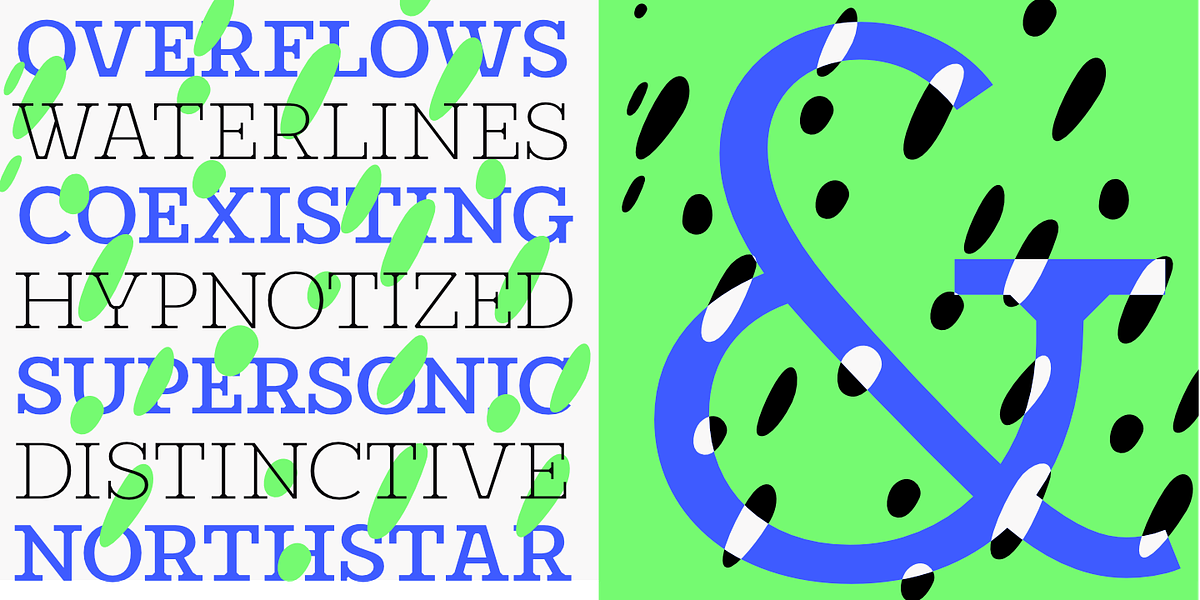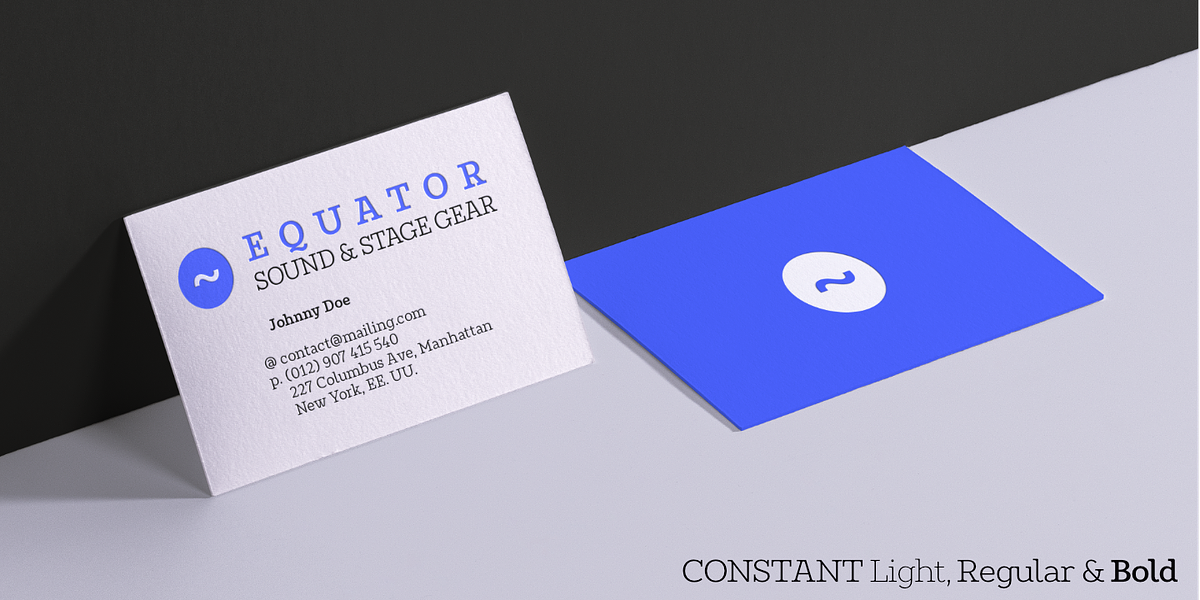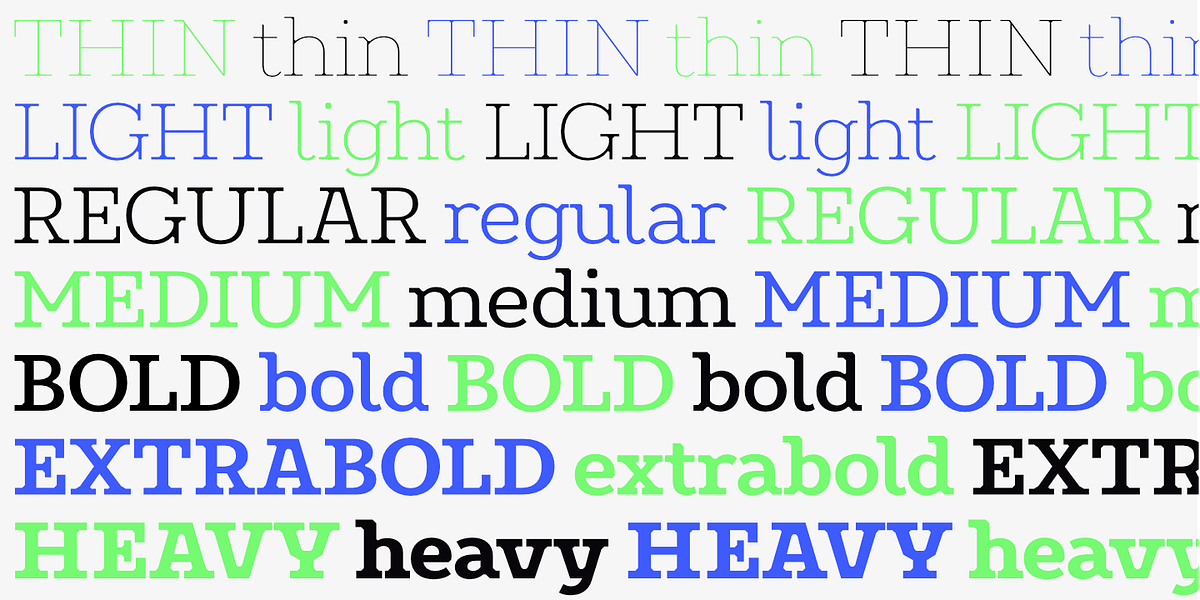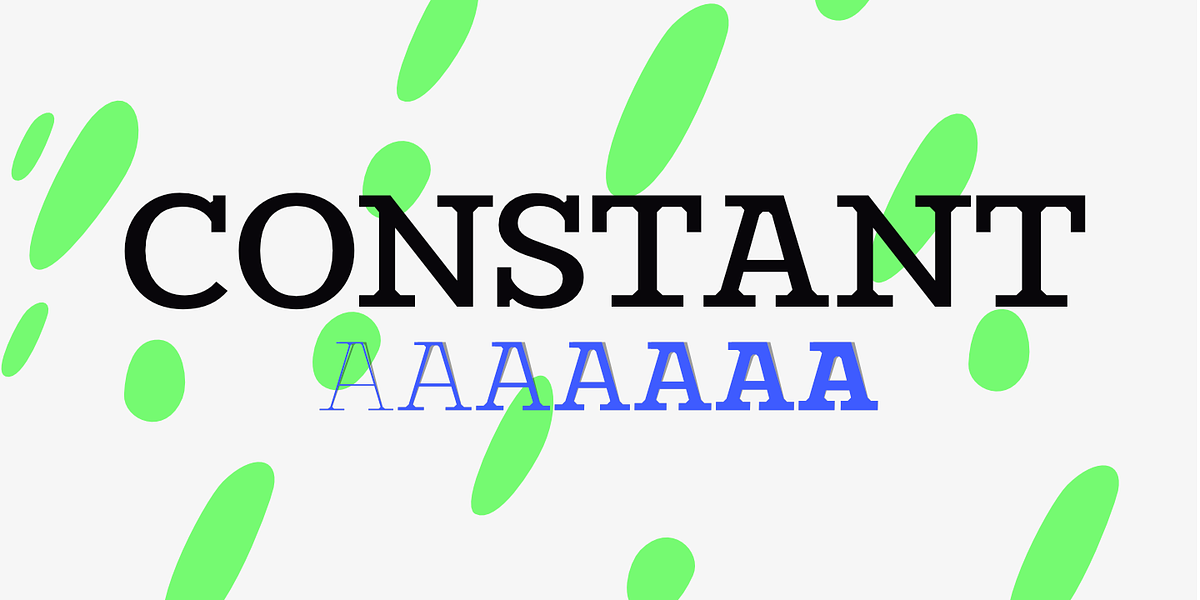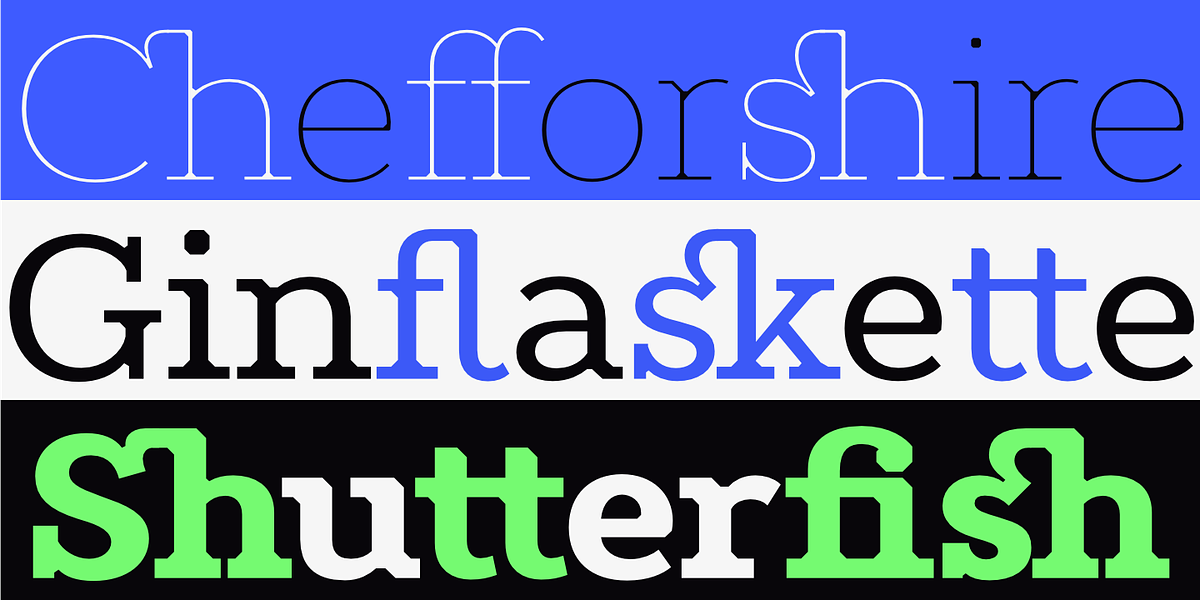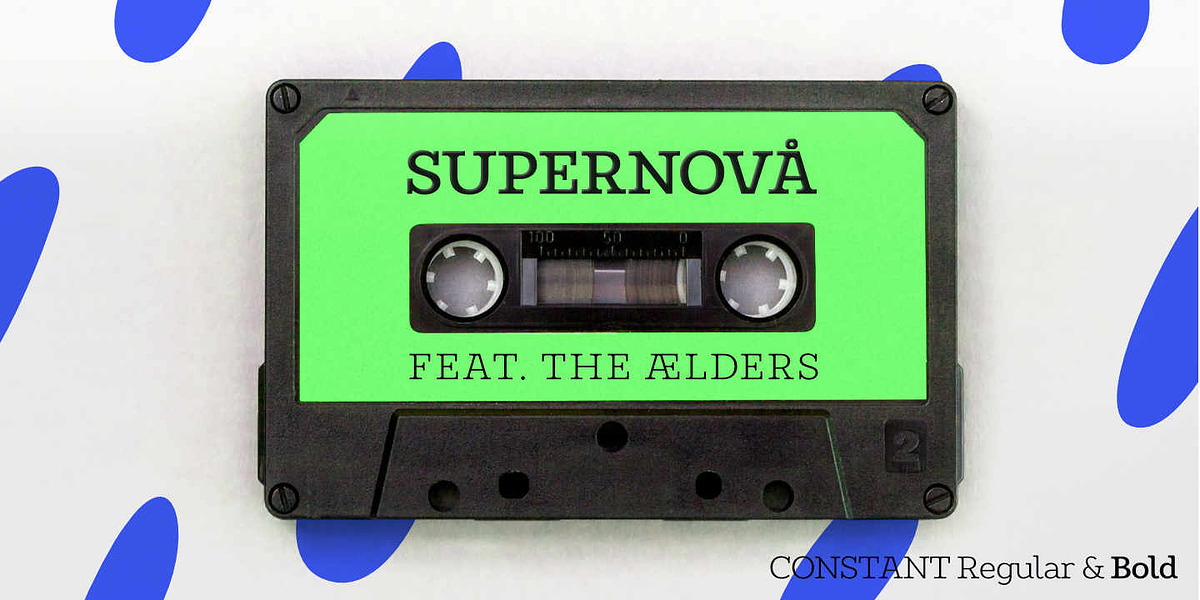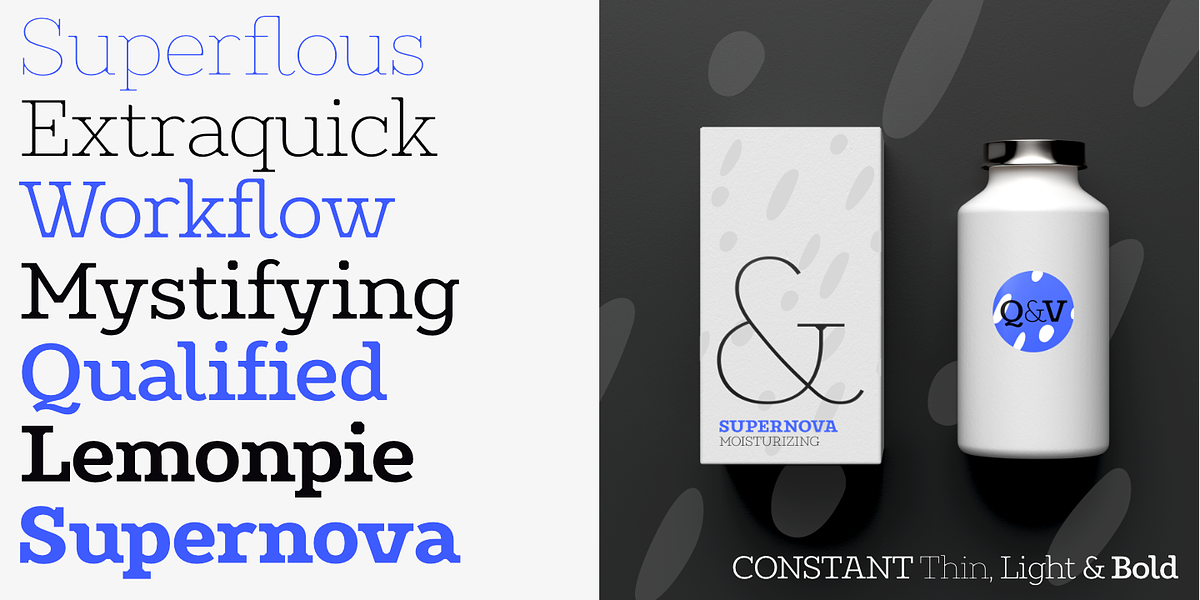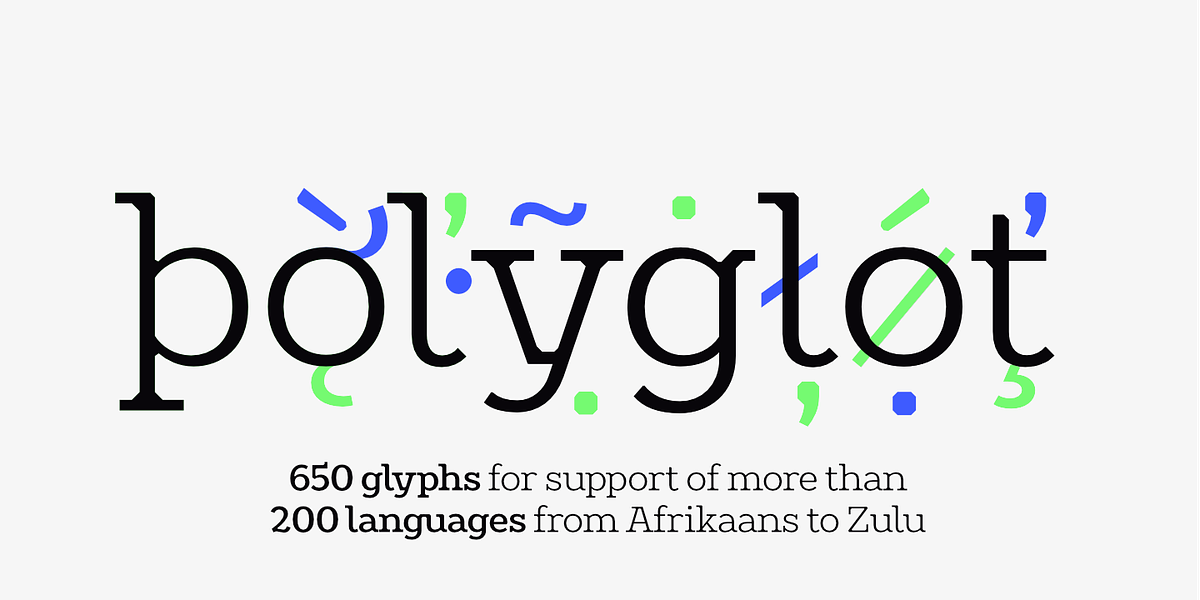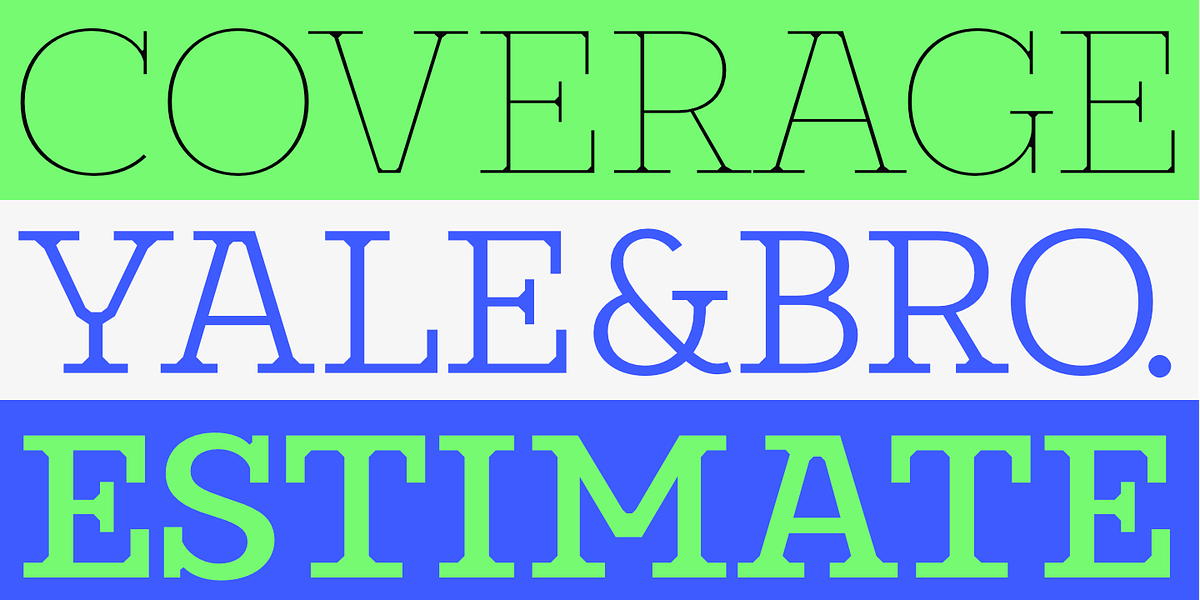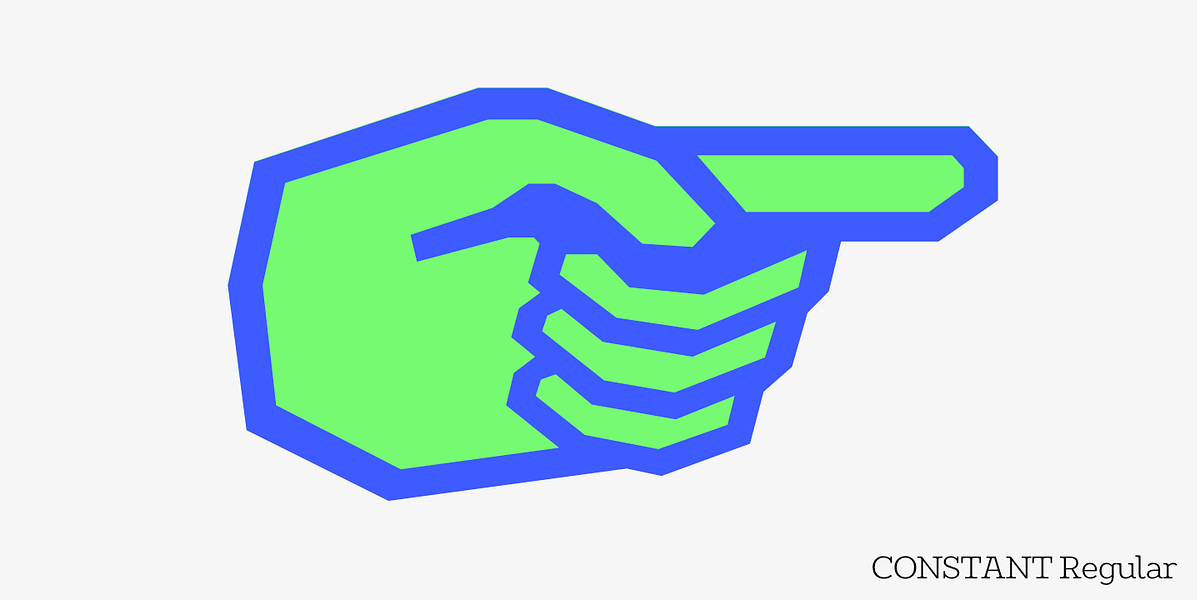
Constant
Constant is a geometric slab serif typeface designed for display purposes. It features strong horizontal and vertical rhythms with calculated angles, giving it a sturdy and authoritative appearance. Despite its angularity, Constant also possesses sweeping broad shapes that contribute to a warm overall feeling. The typeface excels in setting short headlines, word marks, and posters, particularly when used in all uppercase. While primarily intended for display, it can also be effectively employed for shorter text passages in lighter to medium weights. However, using Constant in extended paragraphs may require additional leading to prevent vertical compression.